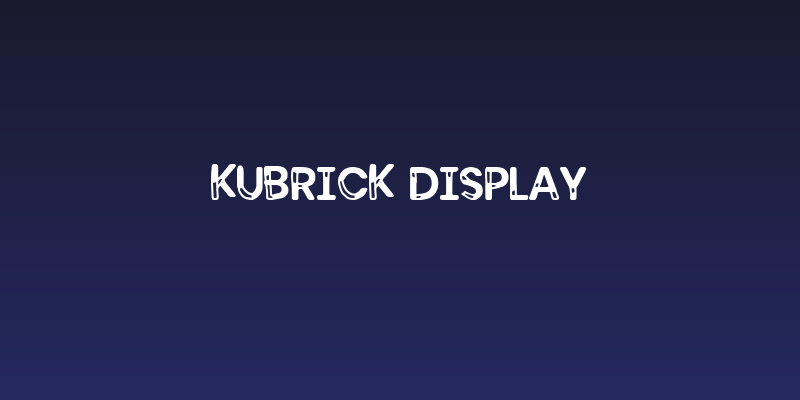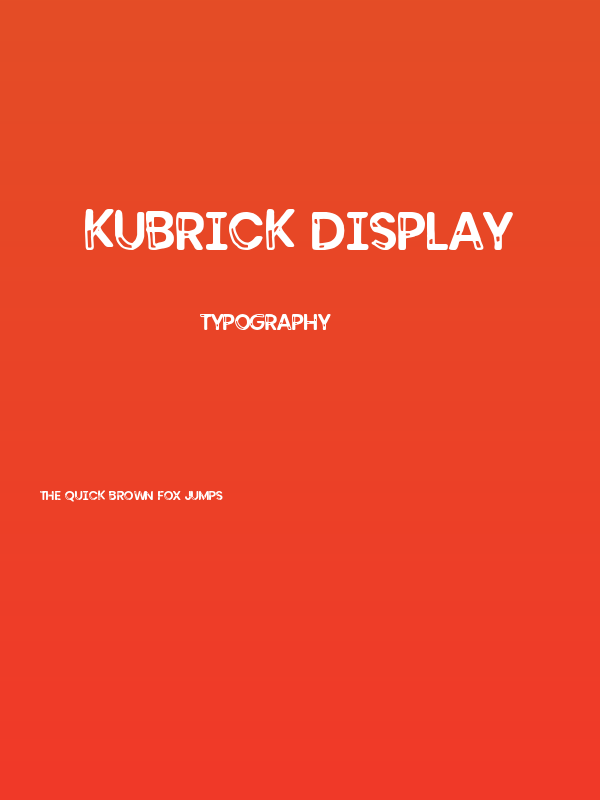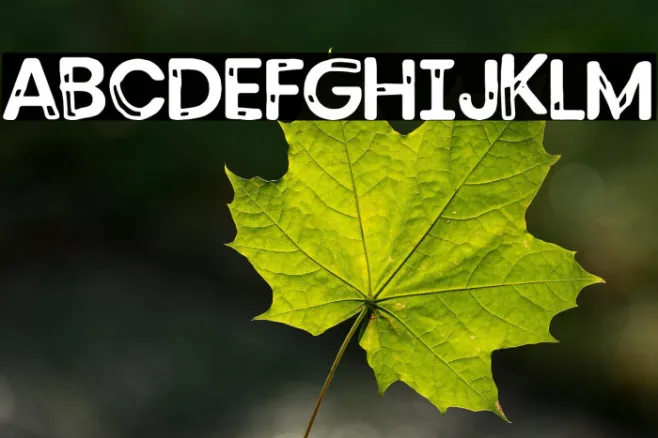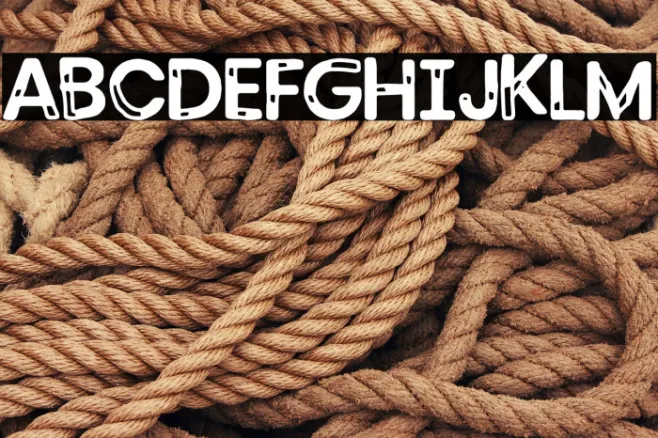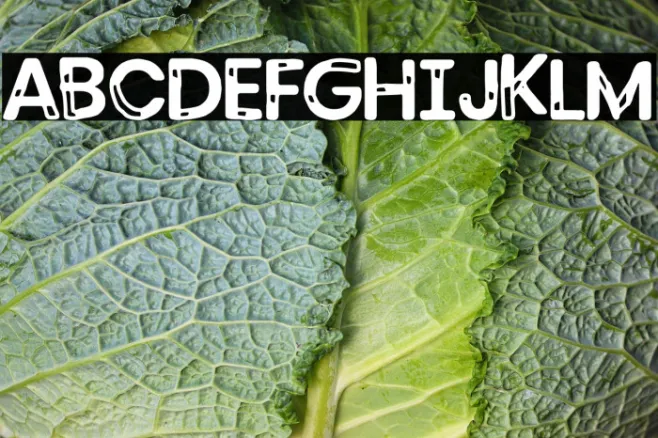
Kubrick Display Font
Kubrick Display Description
This font features a bold, playful style with a unique blend of geometric and organic shapes. The characters are thick and rounded, with a distinctive cut-out effect that adds a sense of depth and dimension. The uppercase and lowercase letters maintain a consistent style, while the numbers and special characters complement the overall design. This font's quirky and eye-catching appearance makes it ideal for creative projects that require a touch of whimsy and boldness.
| Proposed Projects | Ideal for posters, branding, children's books, and creative digital media. |